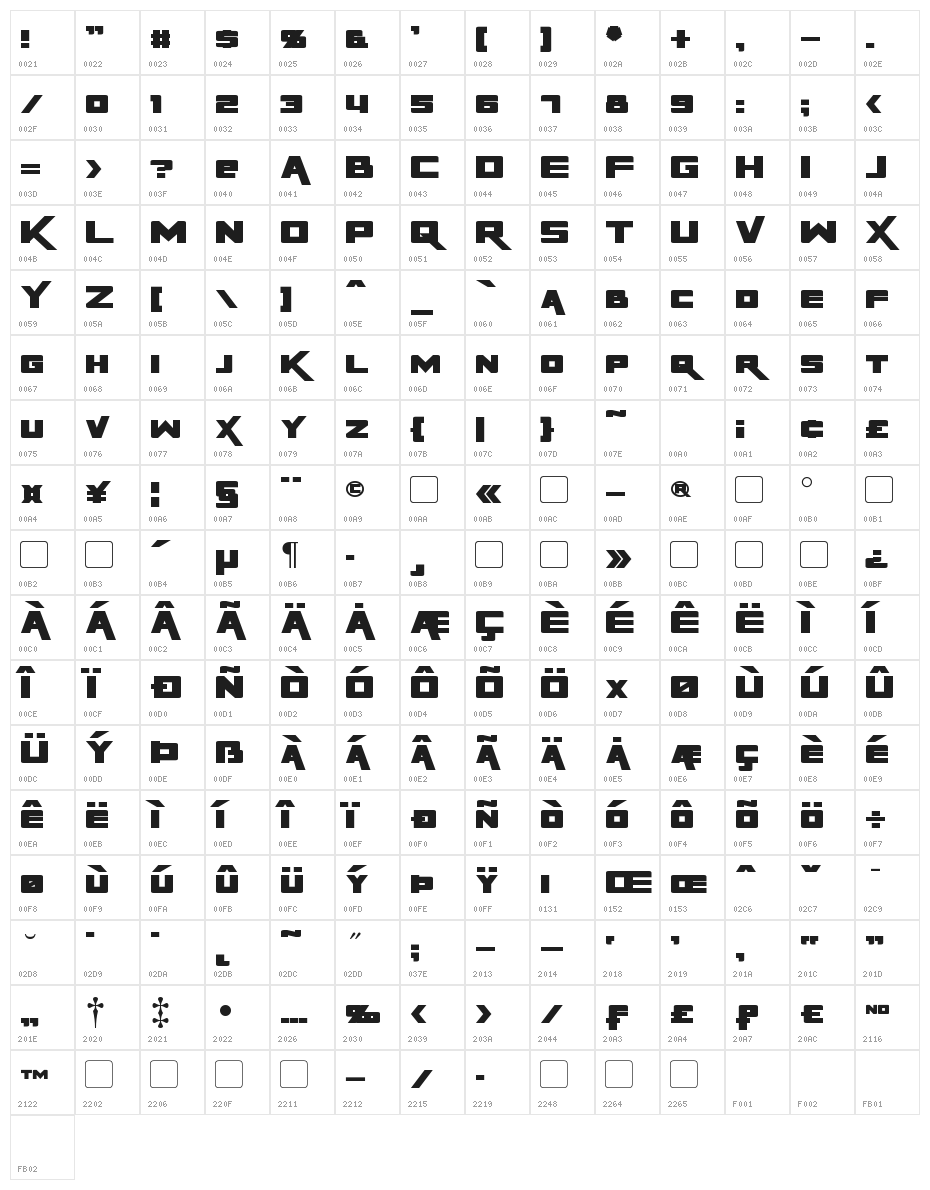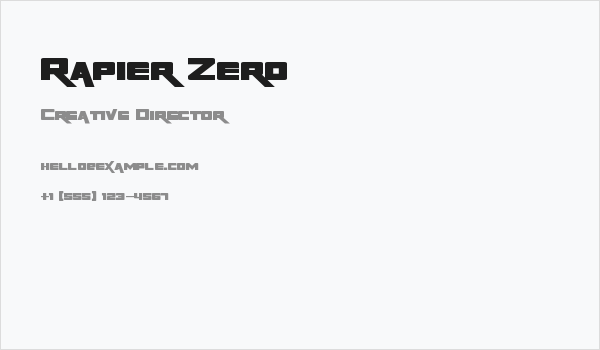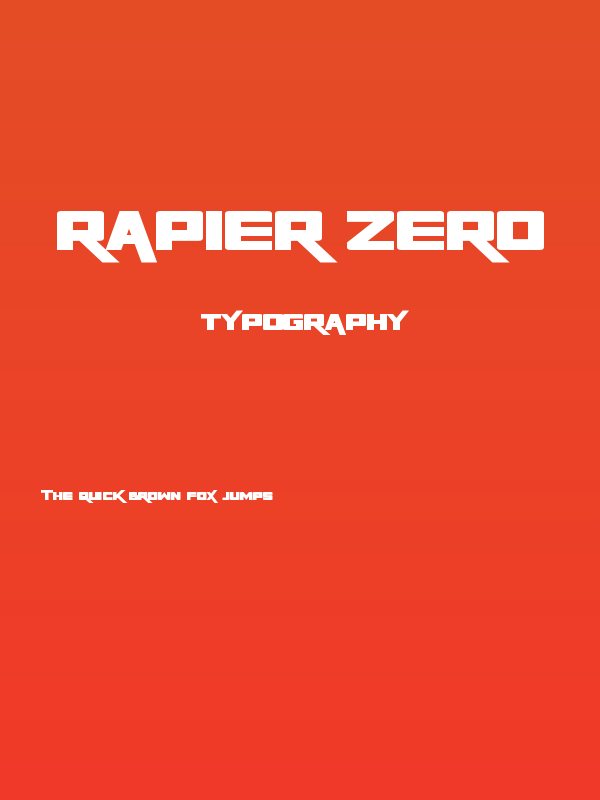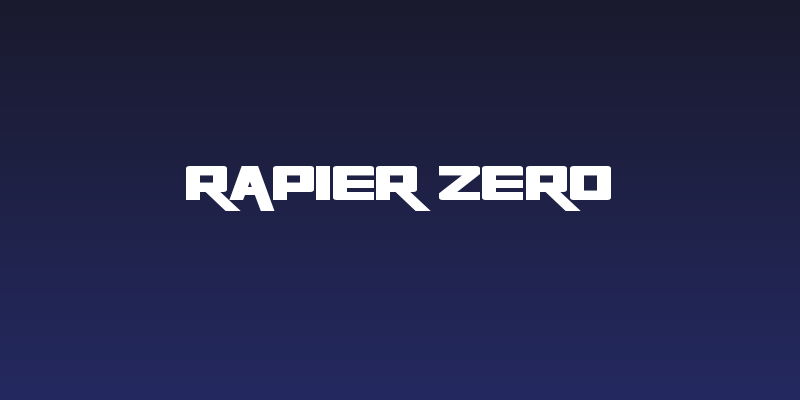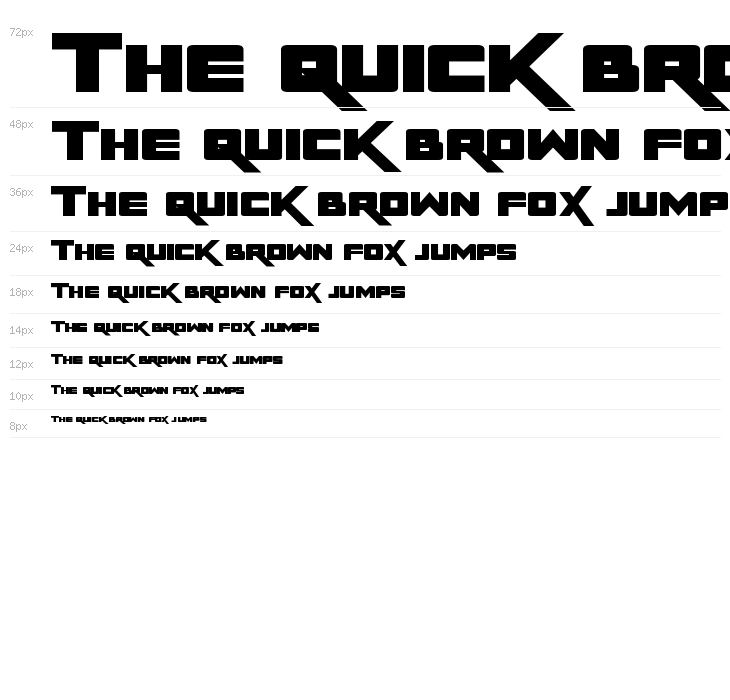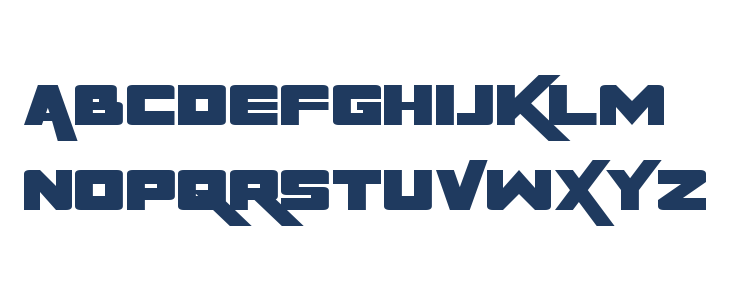
Rapier Zero Font
Rapier Zero Description
This font features a bold, futuristic design with sharp angles and geometric shapes. The uppercase letters are particularly striking, with a strong presence and unique cut-out elements that give them a dynamic look. The lowercase letters maintain the same boldness, ensuring consistency across text. Numbers and special characters are equally bold, with a distinct style that complements the letters. The overall appearance is modern and edgy, making it suitable for projects that require a strong visual impact.
| Proposed Projects | Ideal for sci-fi themed designs, video game titles, posters, and branding that requires a modern and bold aesthetic. |